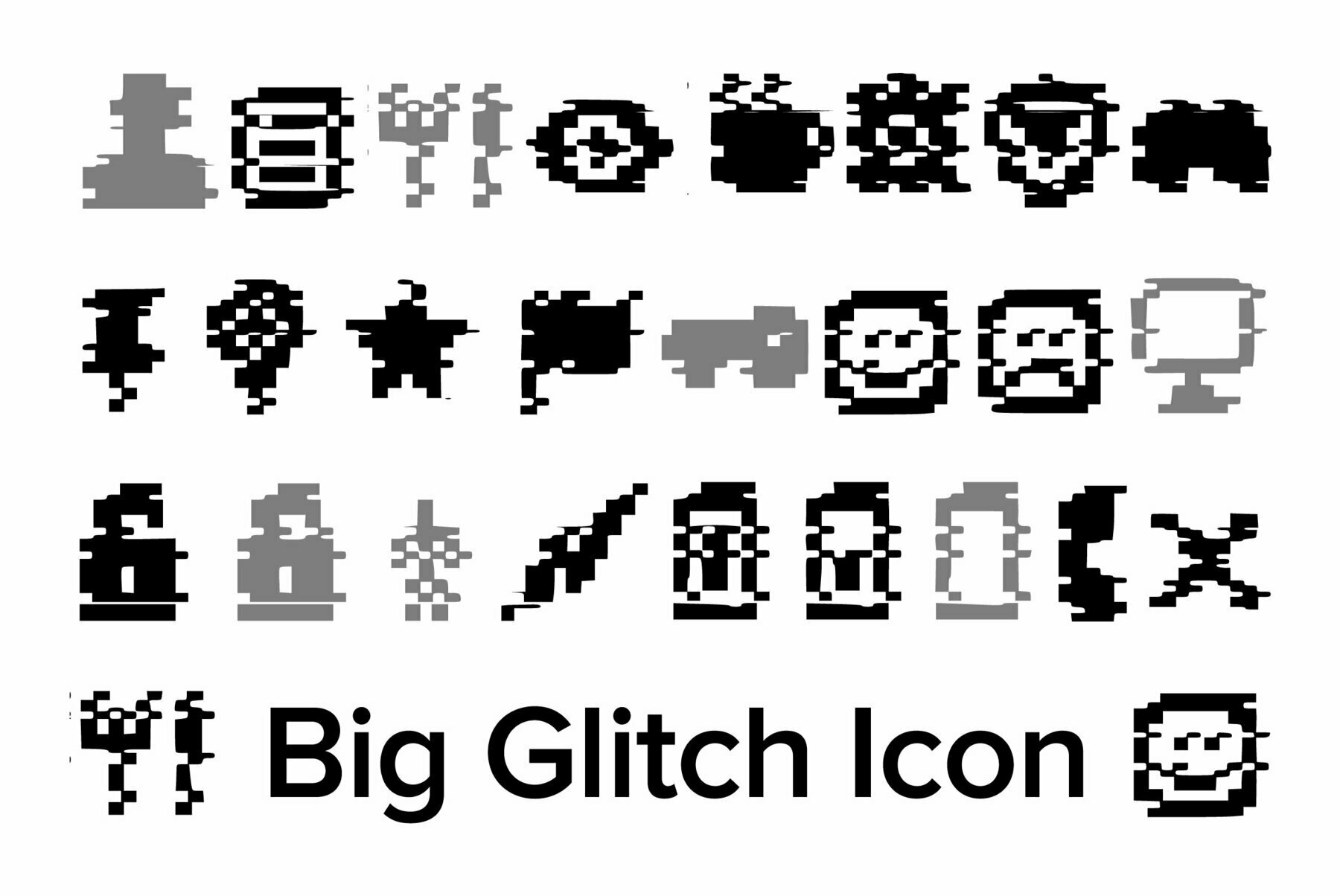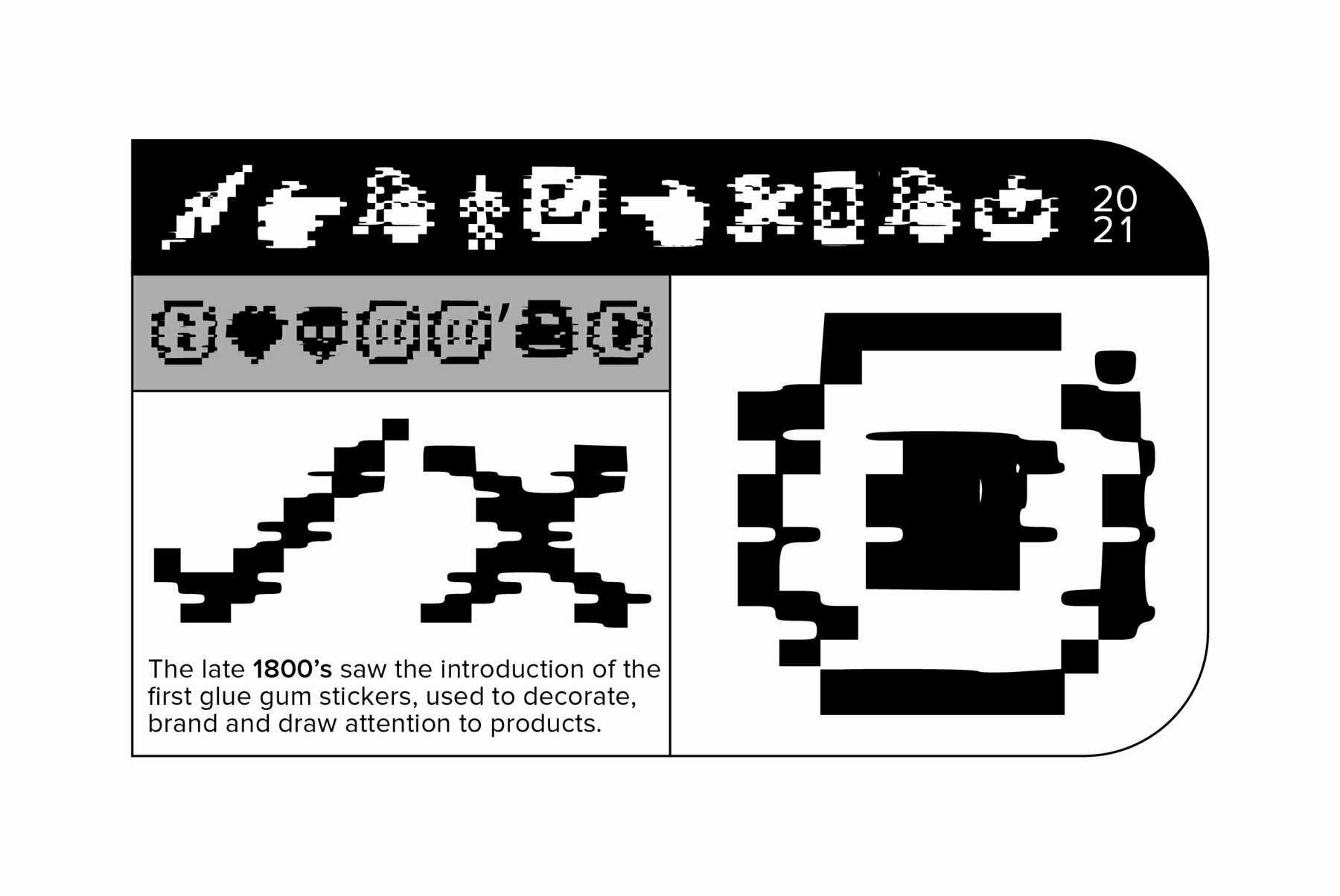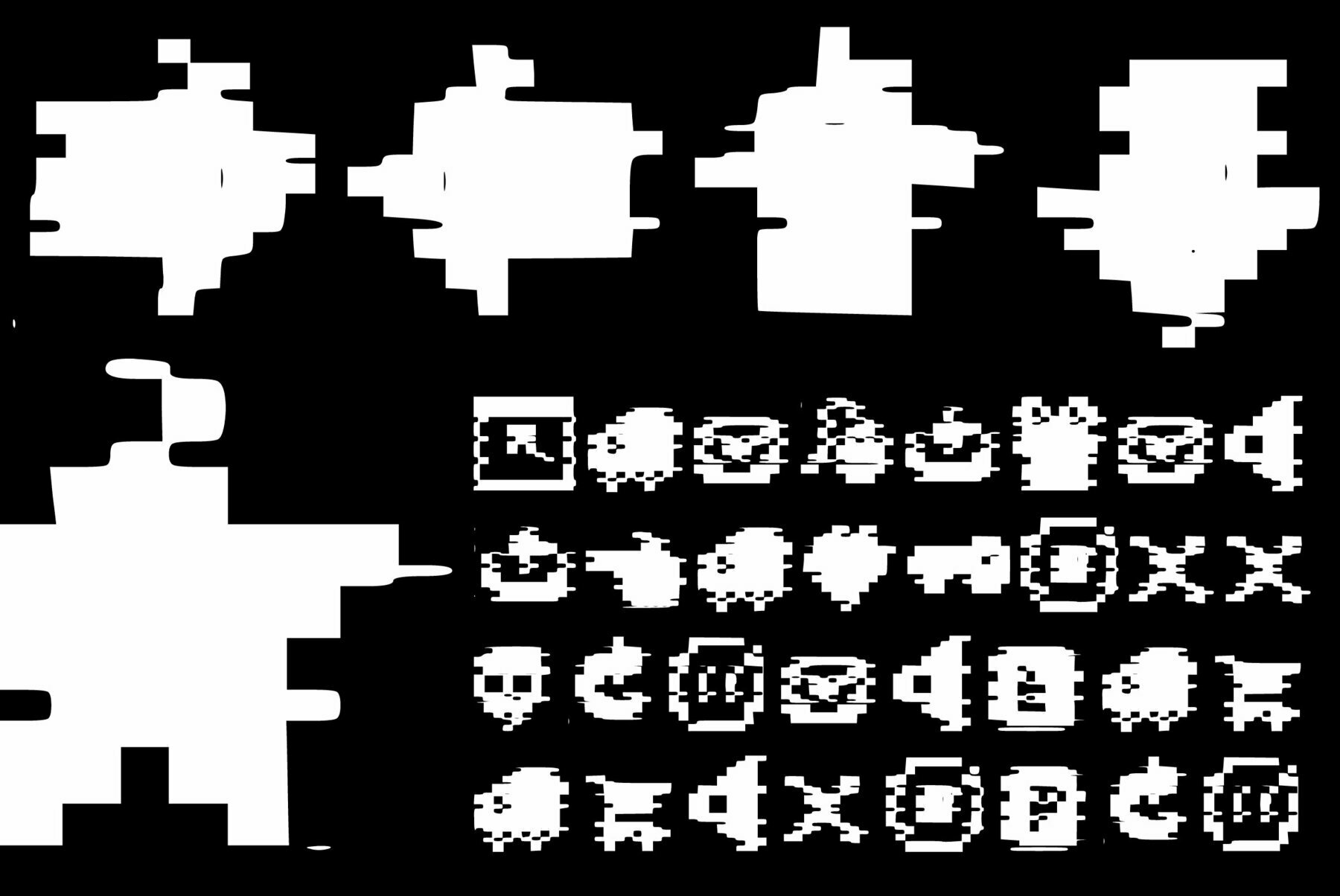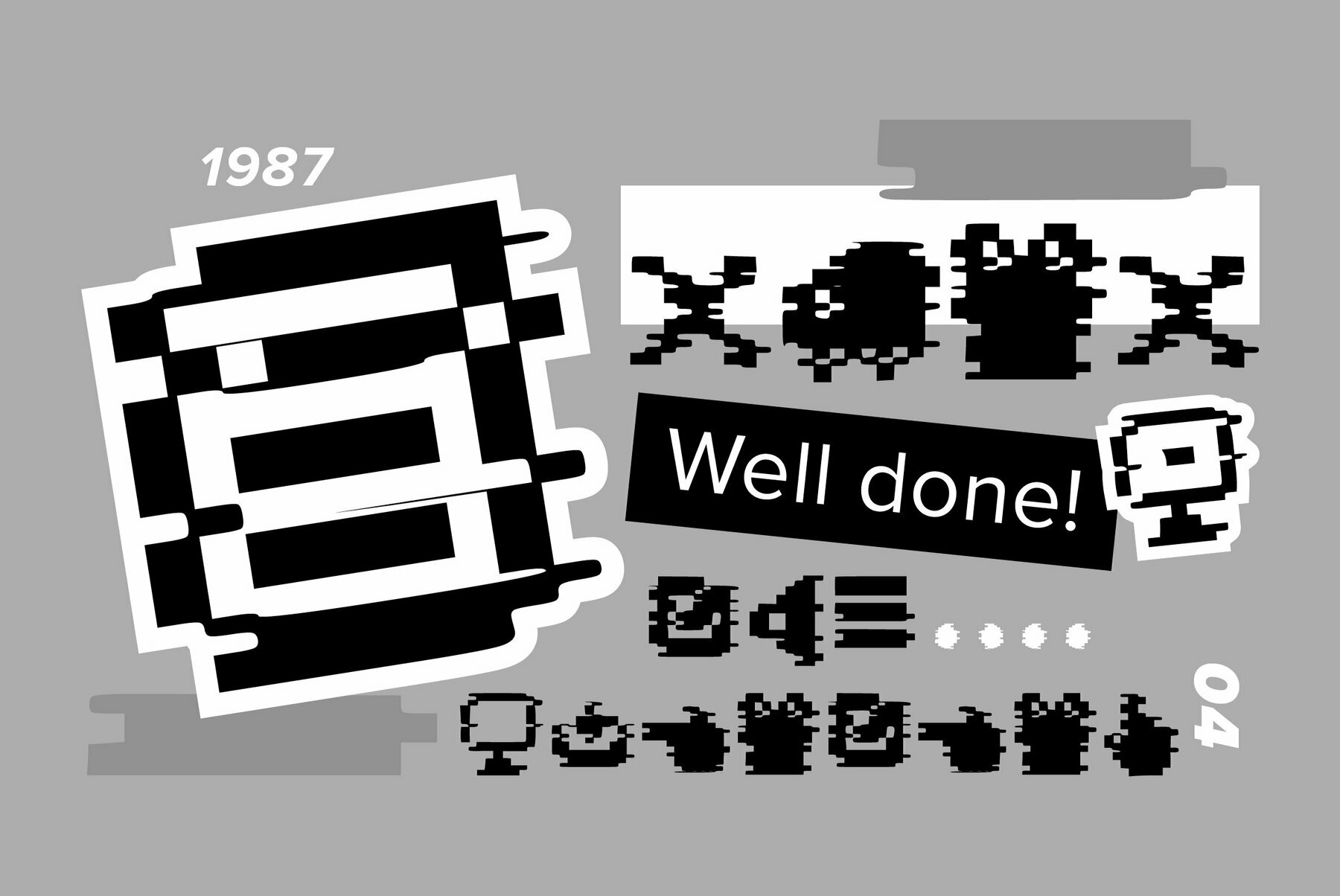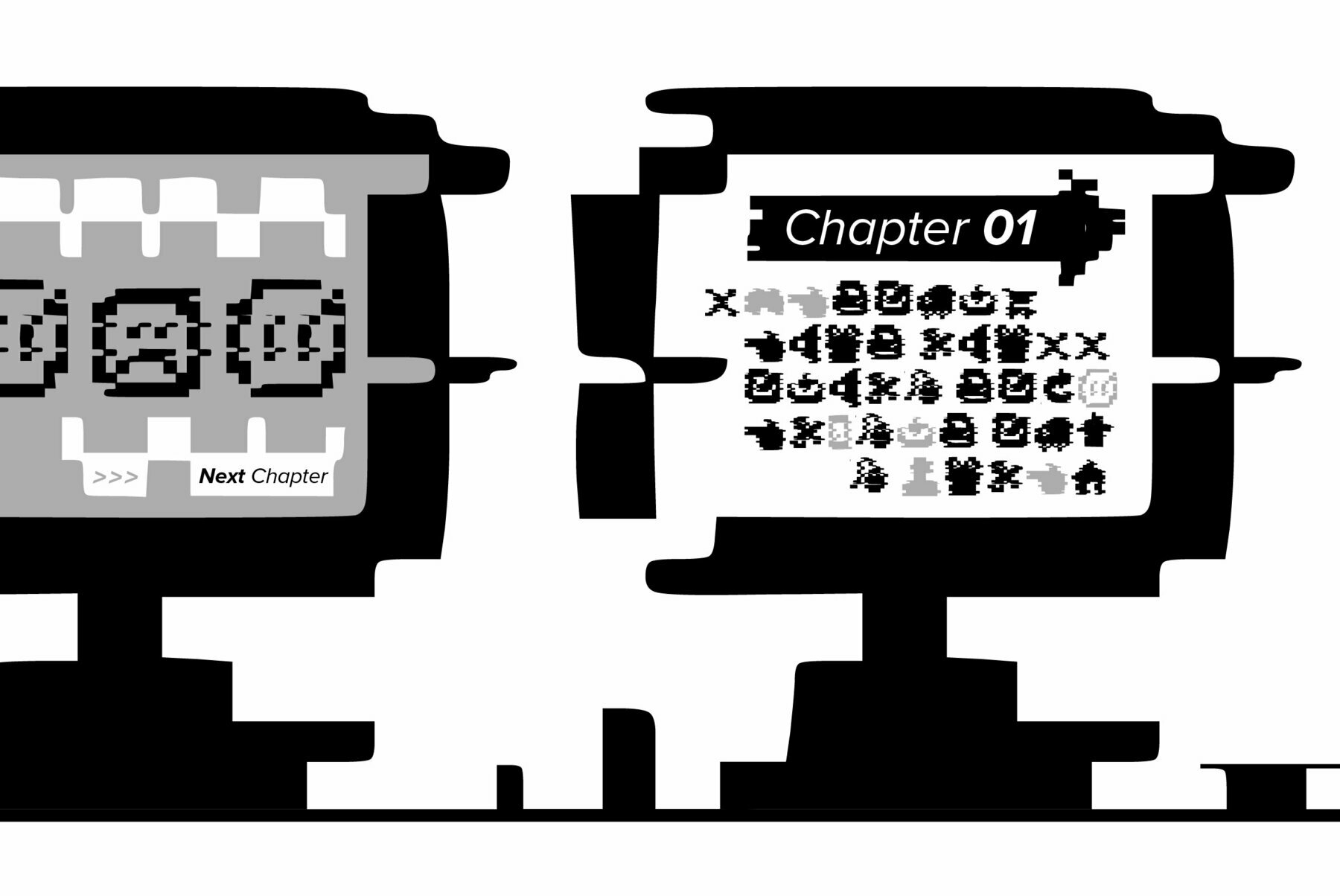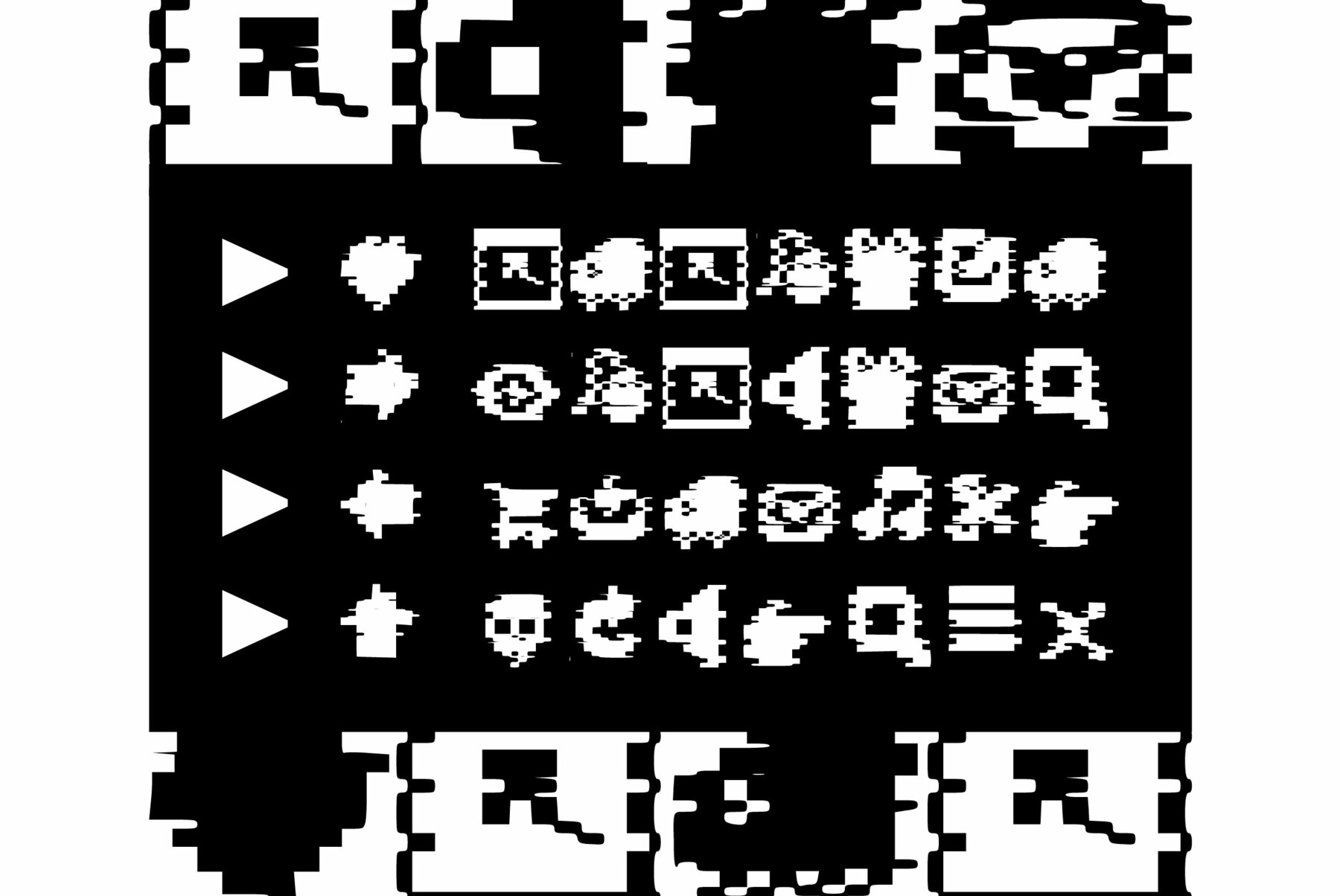
Big Glitch Icon Font
Big Glitch Icon Regular
Big Glitch Icon is a cool, uniquely shaped, pixelated dingbats font. Add a distorted and trendy touch to your designs with this unusual font!